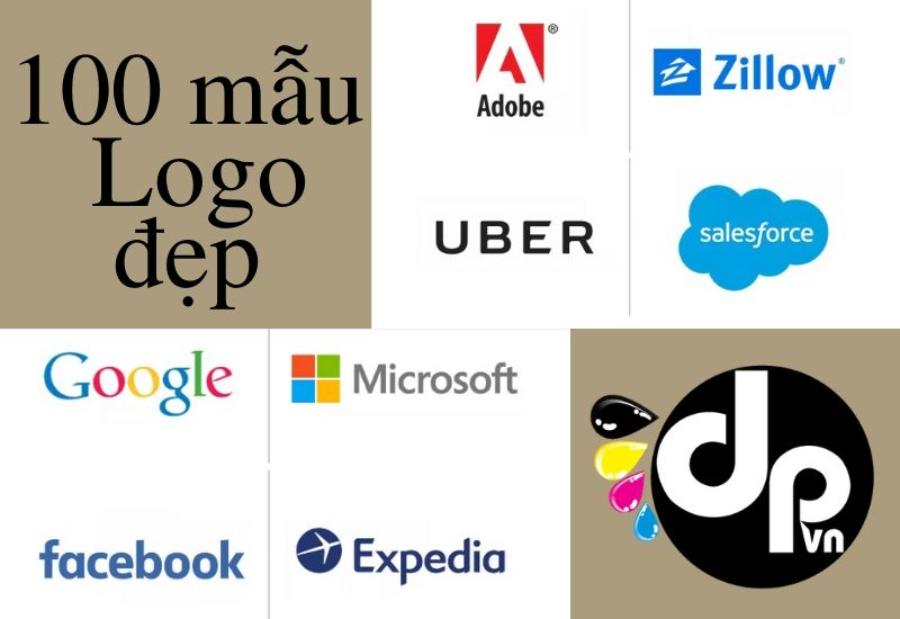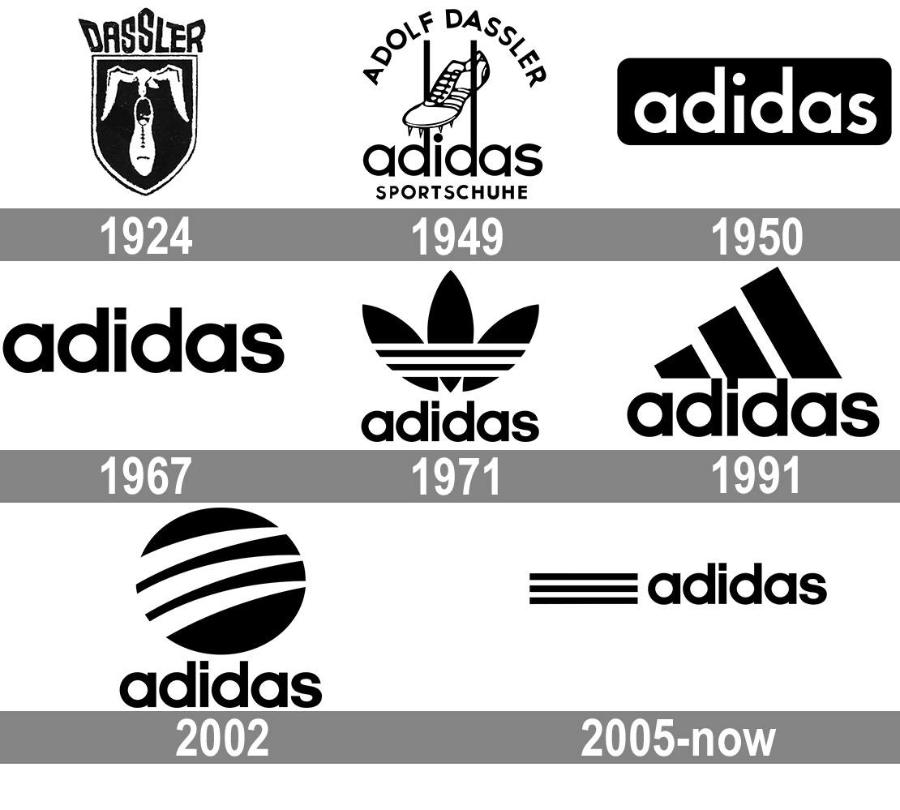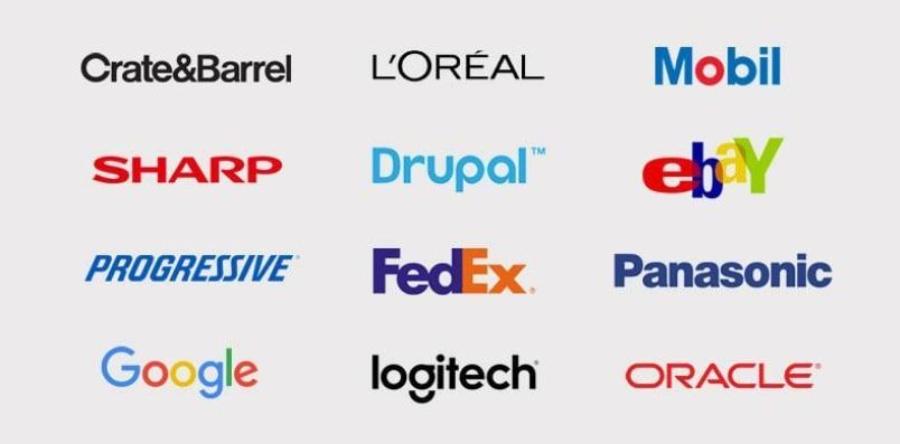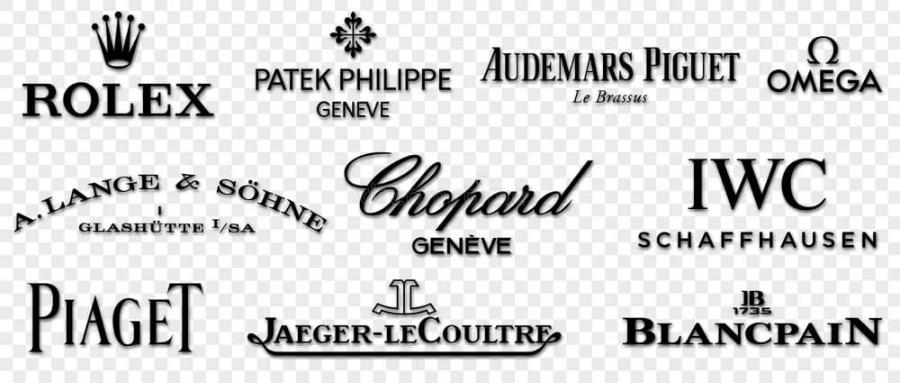
Impressive Fonts from World Famous Brand Logos
Discover 30 beautiful fonts used in logos of the world's leading brands. Learn about style, design inspiration and international standard typography applications
Impressive Fonts from World Famous Brand Logos
Fonts are one of the key elements that contribute to creating a visual impression for a brand. Not just a means of conveying content, typography also reflects the personality, professionalism and image positioning strategy of each business. In this article, let's explore with sadesign 30 outstanding fonts that have created the distinctive appearance of famous global brand logos - from optimal simplicity to emotional classic style.
1. The importance of fonts in logo design
A font is more than just a visual element that supports the text in a logo. It is the soul that communicates a brand’s personality in a powerful, consistent, and direct way. While colors and symbols can create initial emotions, typefaces are what stay in the mind of the viewer, becoming a strategic identity mark in brand design.
1.1 Fonts are the visual voice of a brand
A traditional serif font can convey a sense of trust and formality. A modern sans-serif font, on the other hand, can be friendly, versatile and trendy. Through each stroke, curve, letter height and spacing, a font defines the “voice” of a brand – from strong and bold to soft and approachable. Choosing the right typeface helps businesses express the spirit they want their audience to remember.
1.2 Create consistency and visual memorability
Logos are the foundation of an identity system, and fonts are the key to ensuring consistency across packaging, advertising, websites, and social media. When a font is used smartly and consistently, users will easily remember the brand through seemingly small details such as the font of a product name or a post title. Big brands like Coca-Cola, Google, and Vogue all take full advantage of the power of font consistency.
1.3 Contribute to stratification and differentiation between brands
In a competitive marketplace, differentiation is vital. A unique font – whether licensed, modified, or designed from scratch – can make a logo stand out from the hundreds of thousands of brands vying for attention every day. Just look at the Facebook “F” or the curved “O” of Google and you’ll instantly recognize the brand.
1.4 Demonstrate professionalism and seriousness in design investment
Many businesses fail to build their image simply because of careless and inappropriate font choices. On the contrary, successful brands clearly demonstrate careful investment right from the most basic element – ​​typography. A logo using a neat, carefully adjusted font not only increases aesthetics but also shows the vision, seriousness and values ​​that the brand wants to aim for.
1.5 Promote emotional connections with customers
A soft, well-spaced font will evoke a sense of gentleness and approachability. Meanwhile, a bold, angular font will create a strong, assertive feeling. Fonts are not only a tool for communicating information, but also an emotional bridge – where customers not only see the brand but also “feel” the spirit and core values ​​of the business.
1.6 Suitable for each field and target customer group
There is no “one size fits all” font. Different industries and target groups require different typefaces to enhance persuasiveness. For example, the financial industry often chooses classic serif fonts to create trust; the technology sector favors bold sans-serifs to convey innovation; and high-end fashion brands tend to use fonts with strong contrast to evoke luxury and sophistication. Choosing the wrong font can distract from the message, losing credibility and connection with the target audience.
In short , fonts are not just a visual cover for a logo, but also a strategic tool for brands to build their image, position their personality, and create deep connections with customers. A well-chosen font can elevate an entire identity campaign; conversely, a superficial choice can devalue the entire brand ecosystem.
2. Common features of famous brand fonts
Fonts play an important role in building a brand image, as they not only convey a message but also create a unique identity. Famous brand fonts often have clear characteristics such as simplicity, readability and consistency with the brand's core message.
2.1. Minimalism
Minimalism not only makes fonts recognizable, but also creates a sense of modernity, sophistication and professionalism. Clear, uncomplicated lines combined with balanced proportions help fonts easily convey the brand message effectively. In addition, the use of minimalist fonts also contributes to ensuring flexibility when applied across different platforms and formats, from print to digital, while still maintaining consistency and visual appeal.
2.2 Balance between personality and flexibility
Fonts used by famous brands often have a delicate balance between individuality and versatility in a variety of contexts. This ensures that the font not only reflects the brand’s unique identity but is also easily adapted to a variety of applications, from print and digital design to advertising and product packaging.
An effective font is clean, easy to read, and professional, while still conveying the core message of the brand. It is this harmonious combination of aesthetics and function that helps brands build a consistent and lasting image in the minds of customers.
2.3. High symbolic value
Many brands have hired designers to create “unique” typefaces – making their logos unique and unmistakable from their competitors. Their common characteristics often include simplicity, readability, but still ensuring uniqueness, helping the brand stand out from the crowd. In addition, these fonts are often carefully designed or selected to suit the industry, culture and target market, thereby creating a distinct and unmistakable identity.
3. Collection of 30 extremely beautiful fonts on famous brand logos
Here are 30 fonts that have helped shape the logos of some of the world's biggest brands. The list includes stock fonts, custom fonts, and exclusive fonts.
1. Helvetica – Logos of Toyota, Lufthansa, Panasonic
Helvetica is one of the famous fonts and is widely used in the logos of many big brands in the world. Typically, brands such as Toyota, Lufthansa or Panasonic have chosen Helvetica to create a professional, simple and easily recognizable logo for their logo.
With its minimalist and modern design, Helvetica not only brings high aesthetics but also helps convey brand messages clearly and effectively. Using the right font plays an important role in building a brand image, contributing to creating success and a lasting impression in the minds of customers.
2. Futura – Logo with Supreme, Red Bull, Dolce & Gabbana
Futura is one of the prominent fonts and is widely used in the logos of many famous brands such as Supreme, Red Bull, and Dolce & Gabbana. With a minimalist, modern and highly applicable design, Futura not only creates professionalism but also brings a sense of luxury and class to the brands. Choosing the right font plays an important role in building brand identity, helping to convey the message and core values ​​effectively.
3. Gotham – Logo của Spotify, Discovery, DC Comics
Gotham is highly regarded for its versatility, modern yet sturdy form. It is especially popular among technology and entertainment brands. With its modern, easy-to-read and highly aesthetic design, Gotham has helped these brands convey their messages in a powerful and effective way. Choosing a font is not only an aesthetic factor but also an important strategy in building long-term brand value.
4. Trajan – Logo của Columbia Pictures, The Lord of the Rings
Derived from ancient Roman inscriptions, Trajan evokes a sense of majesty, elegance and timelessness. Often chosen by film studios and luxury brands. This font not only brings a classic, elegant beauty but also creates professionalism and class for the brand. Choosing the right font not only helps to convey the message effectively but also contributes to building brand value in the minds of customers.
5. Univers – Logo of eBay (formerly), Western Union
Univers is modern and rational, easy to read in both print and digital. This clean typeface is perfect for brands that emphasize communication and logic.
6. Didot – Logo of Vogue, CBS
Didot represents elegance, sophistication and classicism. Its features such as clear strokes and slender serifs make it a perfect choice for high-end fashion and media.
7. Avant Garde – Adidas logo (early), Calvin Klein (before)
Featuring a geometric and minimalist style, Avant Garde is often used to create logos that are groundbreaking, unconventional, and highly experimental.
8. Bodoni – Logo with Armani, Harper's Bazaar
Bodoni evokes a sense of art and elegance, with a very clear contrast between thick and thin lines. This font is easy to impress in logo design for fashion and fine art industries.
9. Myriad – Apple logo (formerly), Adobe
A balanced, friendly, and modern sans-serif font, Myriad has appeared in the identities of technology giants, expressing simplicity and intelligence.
10. Garamond – Logo of Abercrombie & Fitch
One of the oldest serifs, Garamond exudes a classic, deep feel that's perfect for established or academic brands.
11. Baskerville – Rolls-Royce Logo (variant)
Baskerville is often used to evoke sophistication, reliability and tradition. Ideal for luxury brands.
12. Clarendon – Sony Logo (1950s)
Clarendon has a classic, strong and serious feel. This typeface was once popular in the design of books, newspapers and products associated with Western culture.
13. Franklin Gothic – Logo of TIME Magazine
With its clean form and strong lettering, Franklin Gothic is suitable for media brands, journalism or academic content.
14. Optima – Aston Martin Logo, Estée Lauder
Optima sits between sans-serif and serif, giving it a soft yet elegant feel. This combination makes the logo look both modern and classic.
15. Copperplate – Logo của The Bank of New York
Possessing a clear, sturdy cut and a "geometric" design, Copperplate is very popular in the banking and finance industry.
16. Meta – Mozilla logo (formerly), Berliner Zeitung
The Meta font stands out with its balance between modernity and humanity, clearly expressing the brand personality that wants to convey an open and flexible spirit.
17. FF DIN – Logo of Deutsche Bahn, JetBlue
Loved by airlines, shipping and technology, FF DIN offers a technical, precise and modern feel.
18. Avenir – Logo of Apple Music, Airbnb (before)
Avenir balances geometric beauty with a friendly feel, making it an ideal choice for brands that focus on UX and user experience.
19. Museo – Mozilla logo (formerly), Telegram (app)
Museo is a modern choice with unconventional details, conveying the brand's creativity and innovation.
20. Trade Gothic – Nike Logo (secondary typography application)
Highly regarded in the fashion and sports industry, Trade Gothic is highly versatile, expressing dynamism and strength.
21. Raleway – Logo of many technology startups
The Raleway font is modern, clean and versatile, perfect for startups or youth-oriented brands.
22. Proxima Nova – Logo from BuzzFeed, Mashable
This sans-serif font is popular on digital platforms for its balance of good readability and modern aesthetics.
23. Neutraface – Logo of Shake Shack
A font reminiscent of 20th century modern architecture, Neutraface conveys a sense of creativity, high-end design, and strong aesthetics.
24. Serif Gothic – Star Wars Logo (early version)
A rare blend of serif and futuristic style, Serif Gothic feels mythical and distinct.
25. Lubalin Graph – New York Magazine Logo (formerly)
A bold yet elegant slab-serif typeface that captures the personality of a newspaper or publishing brand.
26. Charter – Logo of Penguin Random House (publication)
The font has an easy-to-read, friendly and classic style, very suitable for the book publishing industry. This font not only brings a sense of professionalism but also shows sophistication and modernity, suitable for the value that the brand wants to convey. Choosing the right font not only helps to increase aesthetics but also contributes to affirming the brand's identity and message in the eyes of the public.
27. ITC Avant Garde Gothic – Adidas Logo (first version)
Different from the usual Avant Garde, ITC has a neat and sharp geometric style, making the logo stand out more.
28. Avenir Next – Snapchat Logo (Text)
Avenir Next improves on Avenir, increasing flexibility and digital compatibility. It is the top choice for modern logos and UX interfaces.
29. Brandon Grotesque – Logo của Comedy Central
With soft curves and just the right amount of thickness, Brandon Grotesque feels friendly, inspiring, and trustworthy.
30. Serif Pro – Logos for craft and art brands
Serif Pro has a strong humanistic feel, perfect for brands that need to convey a handmade, individual, classic yet modern feel.
4. Conclusion
Choosing a font is not just an aesthetic decision, but also a long-term brand strategy. 30 fonts used in logos of famous brands around the world have proven the important role of typography in building image and identity. Each font carries its own story, its own emotional orientation, contributing to shaping the brand's identity and maintaining visual consistency over the years.